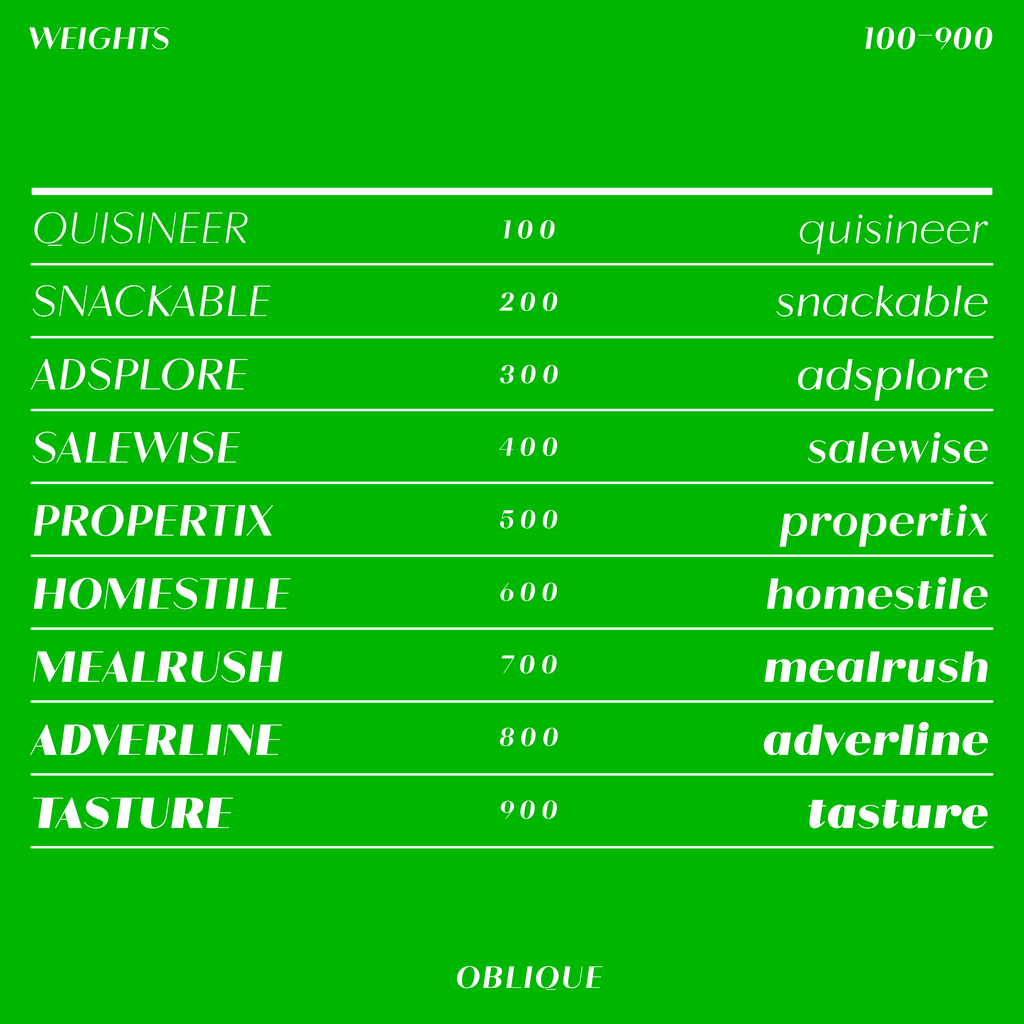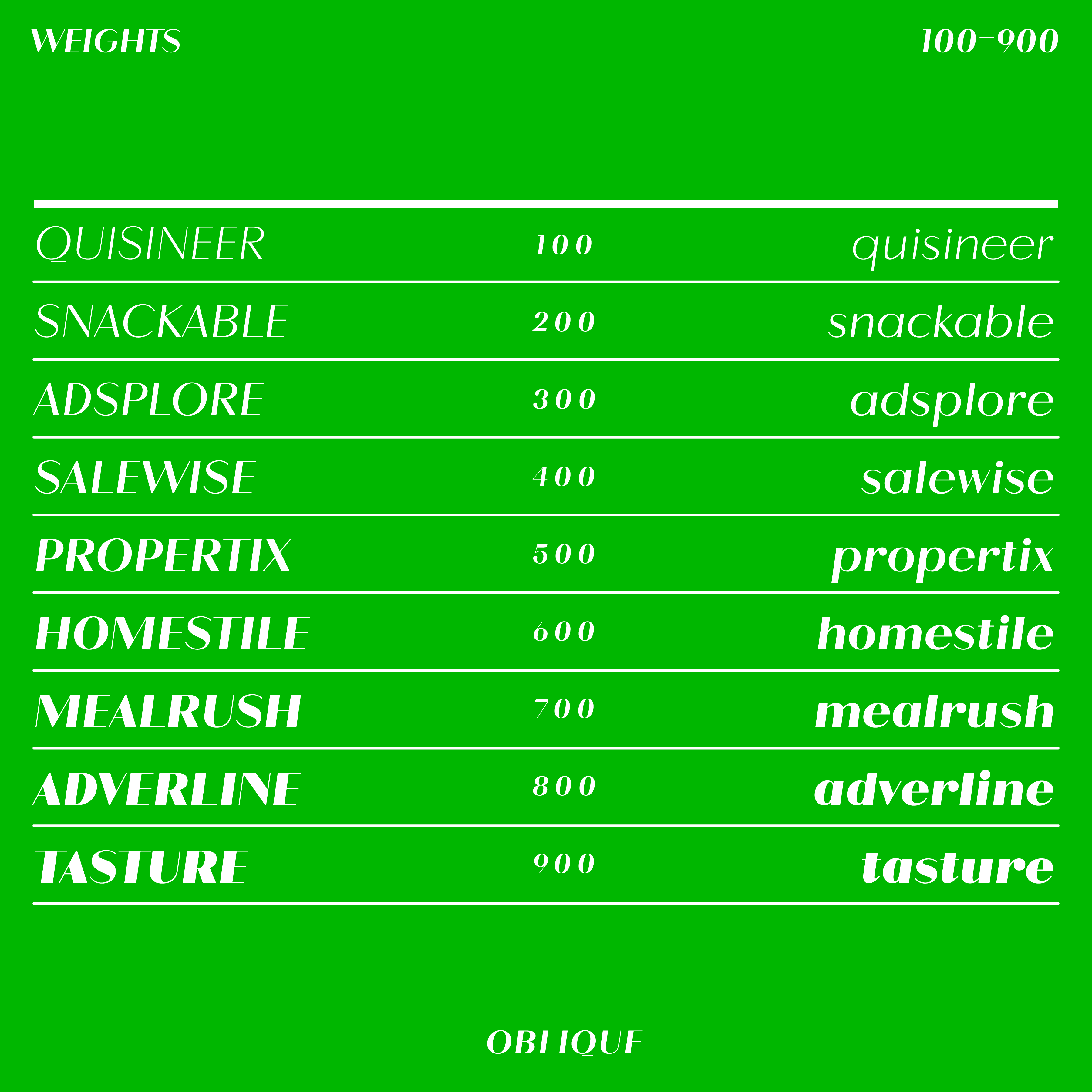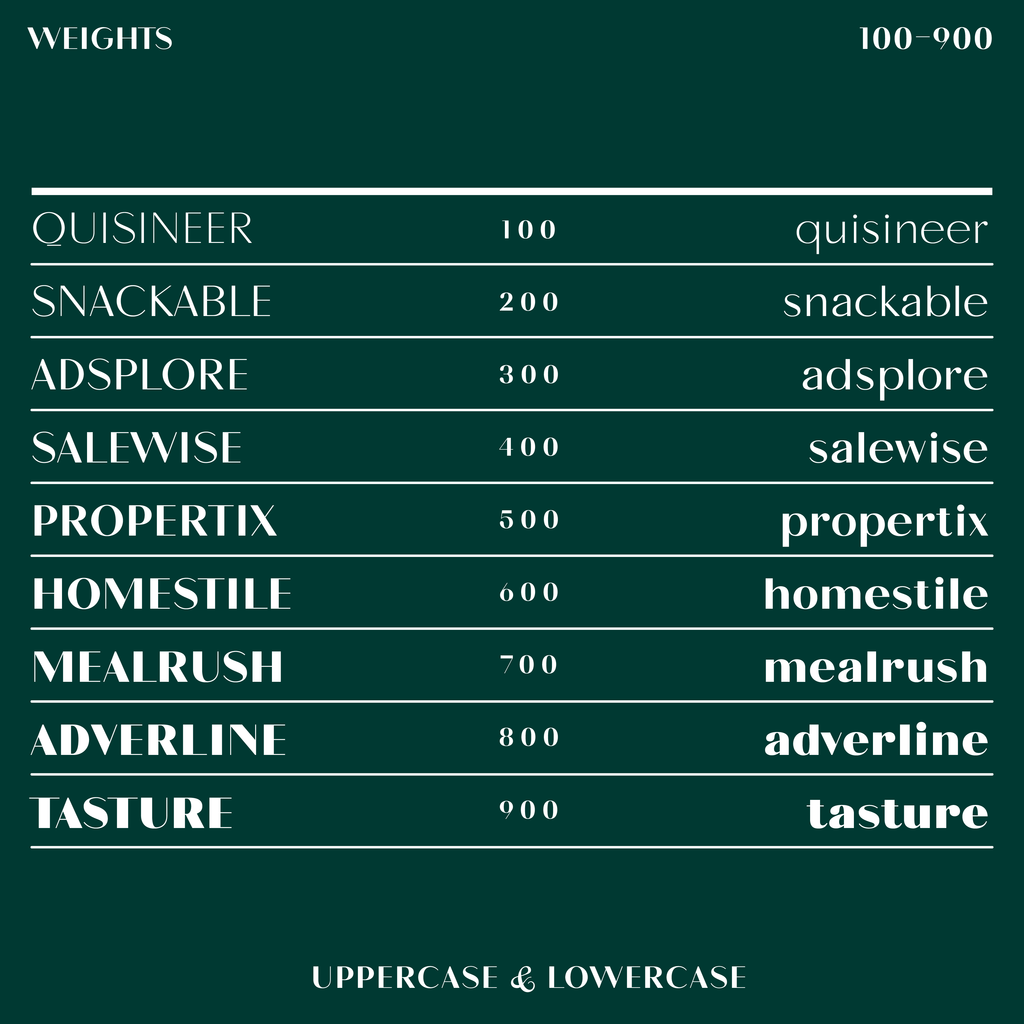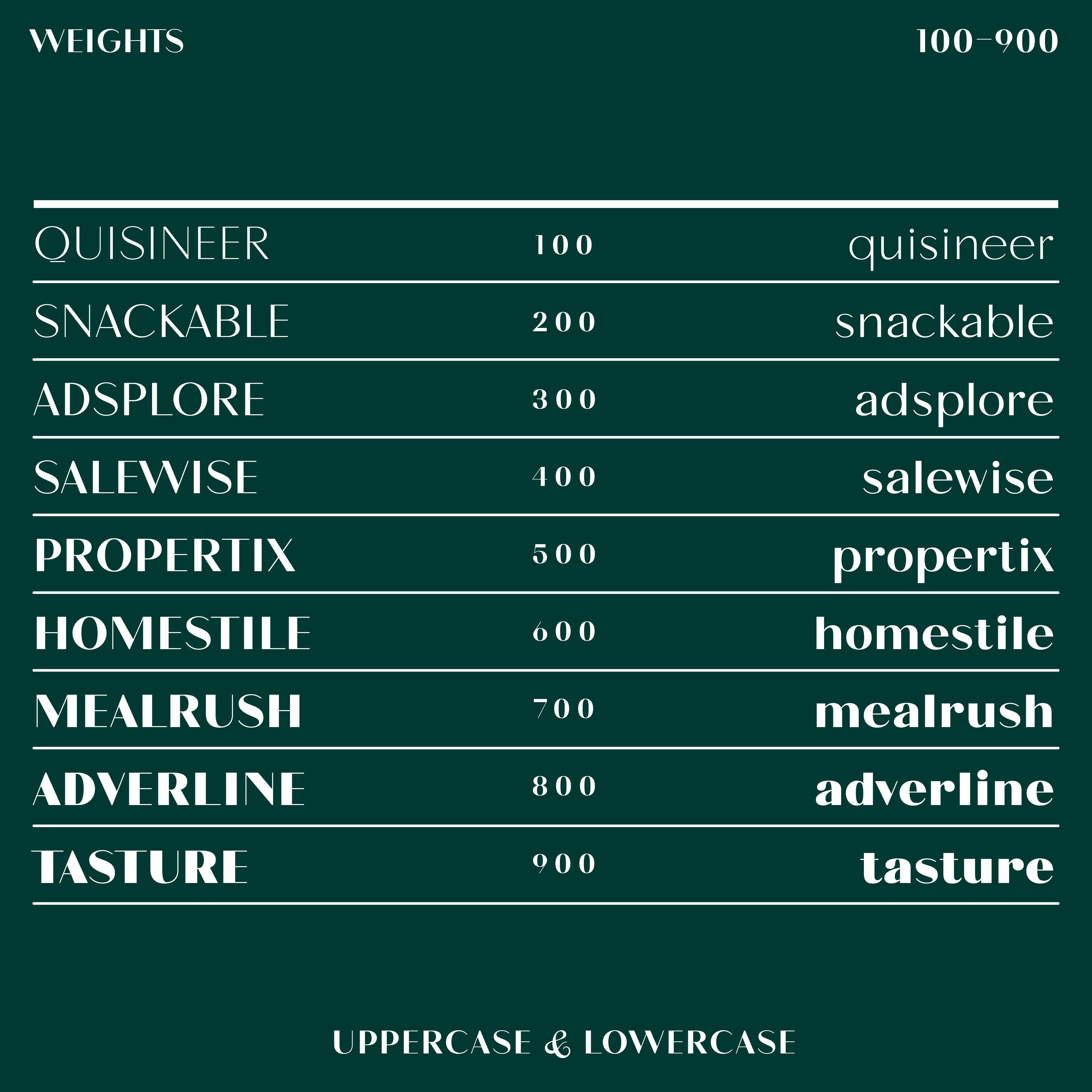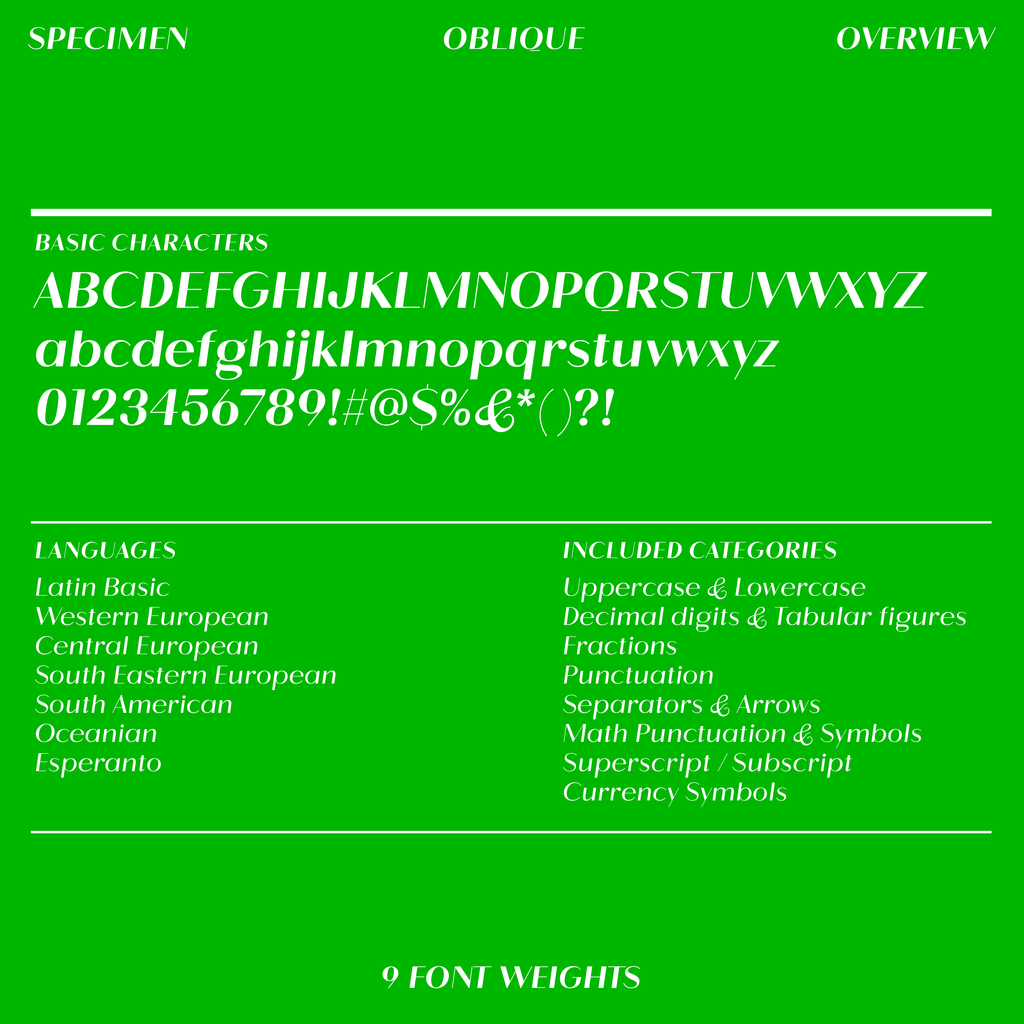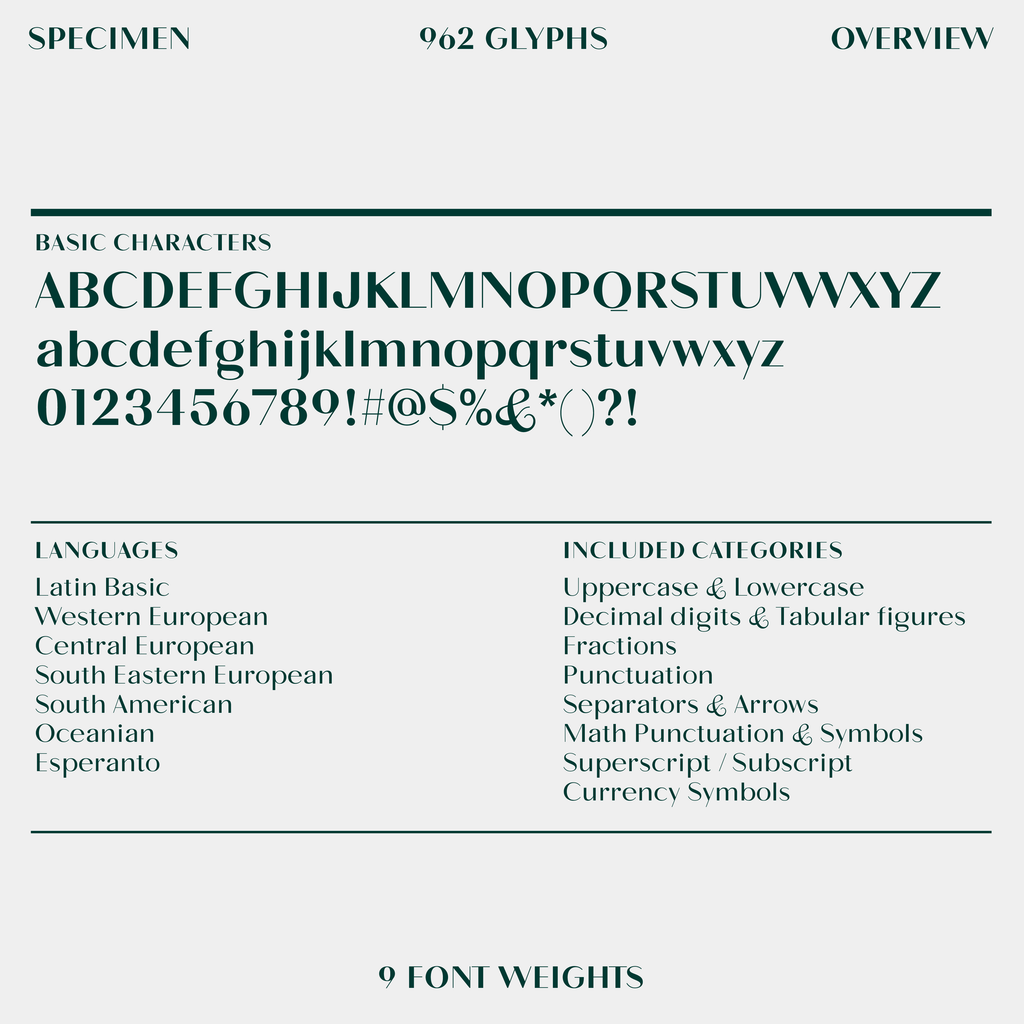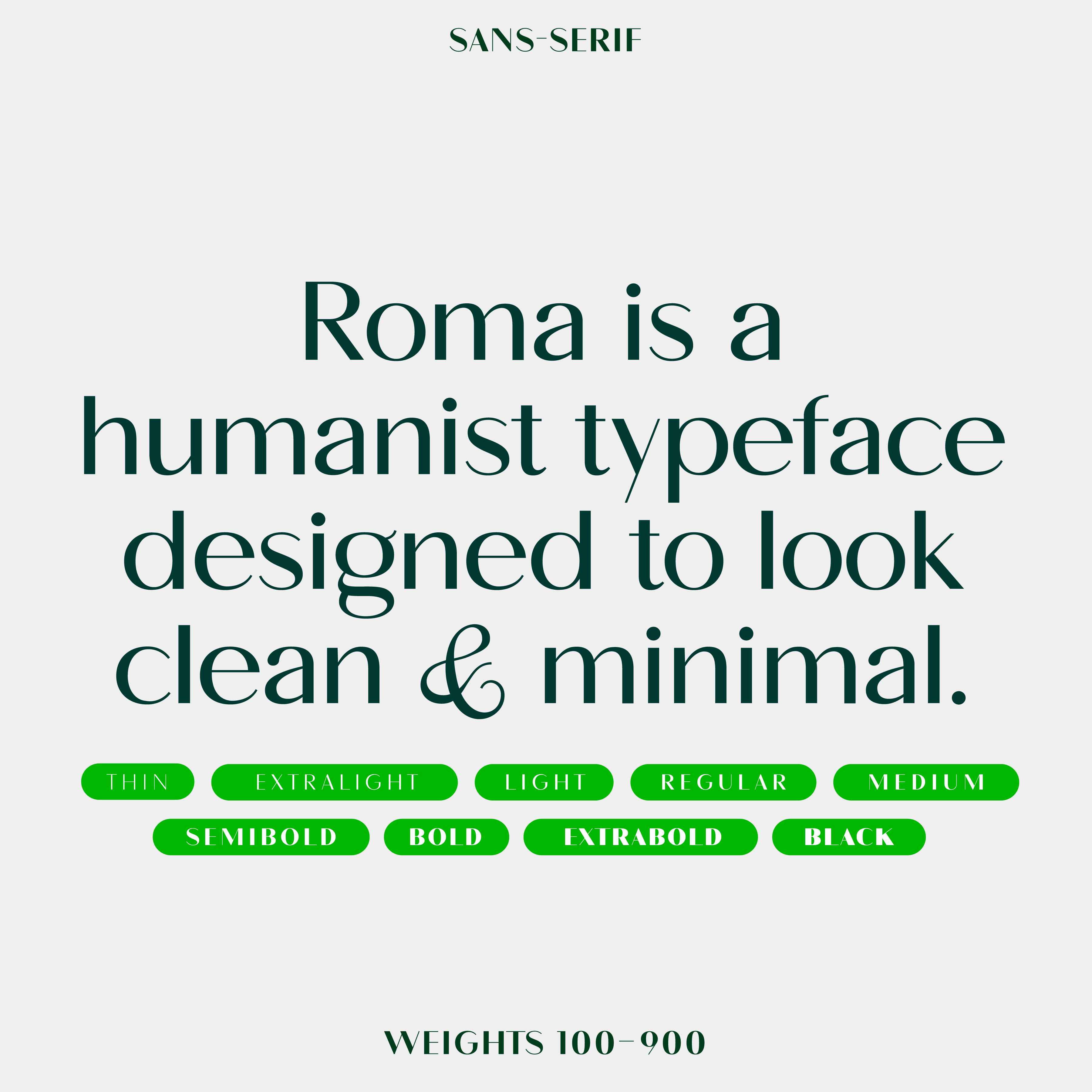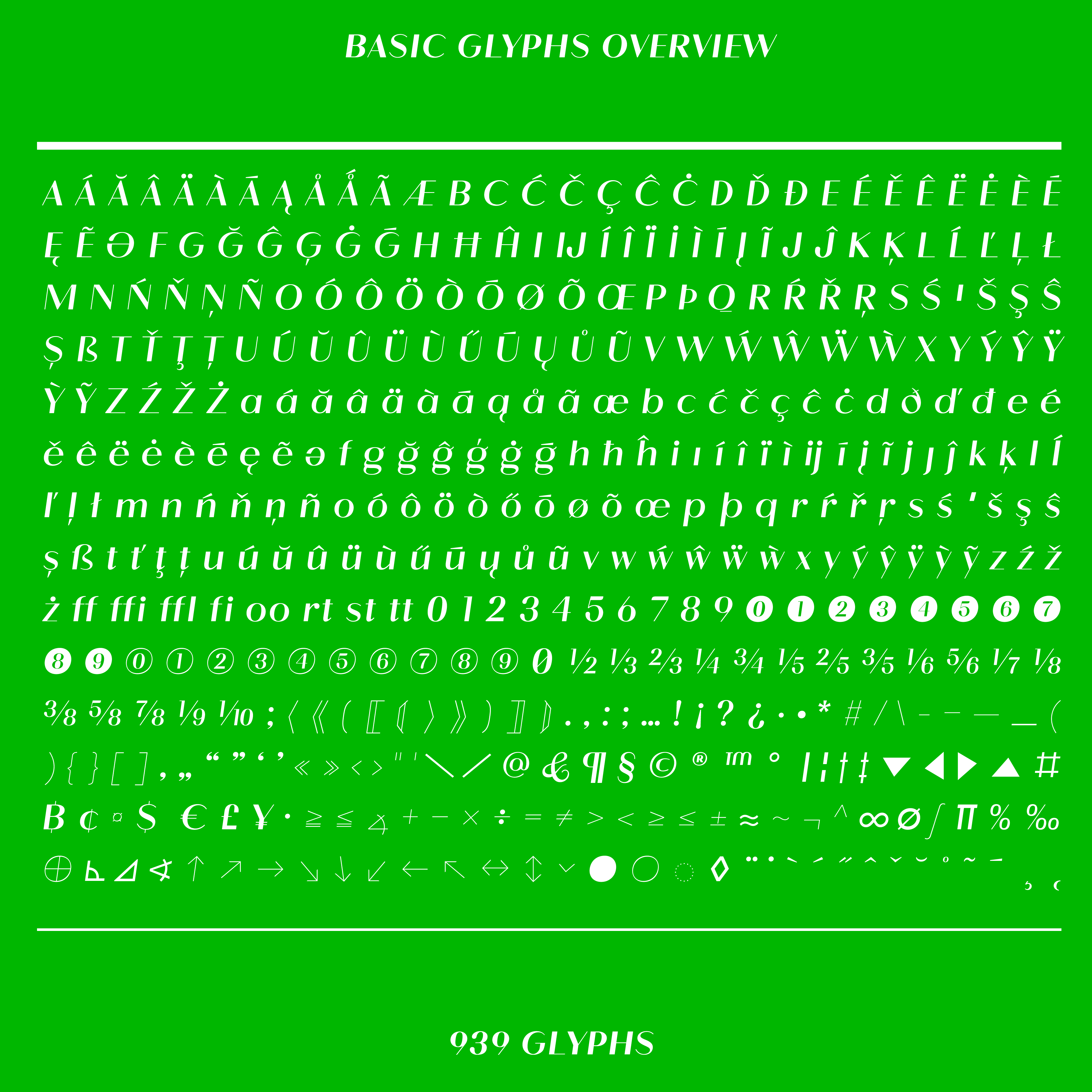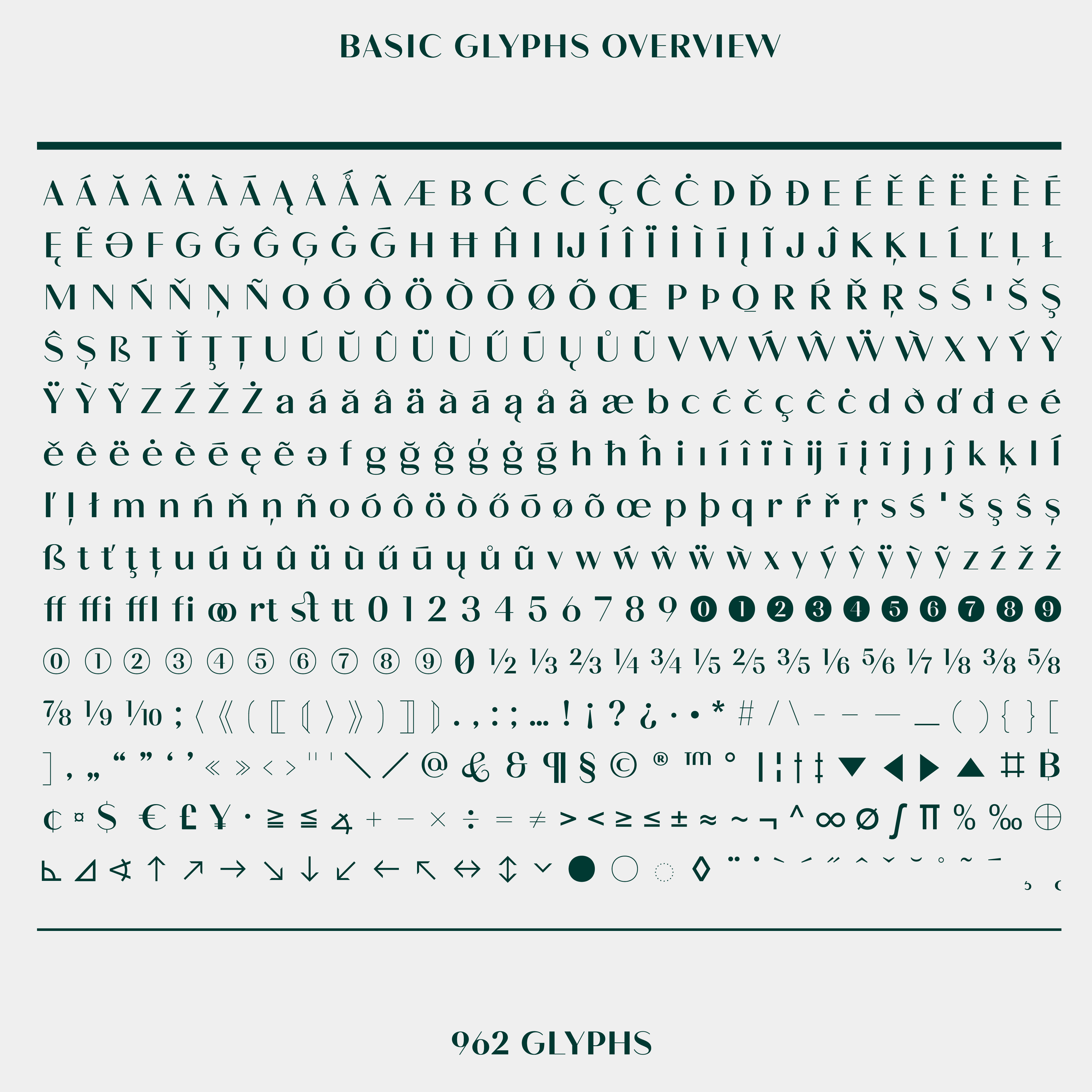
Roma, sans-serif humanist contrast font
Roma, stylistic sets and ligatures
Roma font alphabet and languages
Roma—Sans-serif contrast typeface
Roma font wordmark / logotype examples
Roma, contrast font for clean and minimal look
Roma font weights 100-900 and text examples
Roma—Sans-serif contrast typeface
Roma, basic glyphs overviews
Roma, body copy and headline examples
Roma font in use on business card mockup
Roma—Sans-serif contrast typeface
Roma is a contrast humanist typeface with a geometric frame, designed to look clean & minimal. This font is perfect for fashion, beauty, and wellness branding. Roma has plenty of alternative letters to create a unique and even organic style.
Available in 9 weights, upright and oblique (italic) styles. You might be interested in the oblique (italic) version of Roma